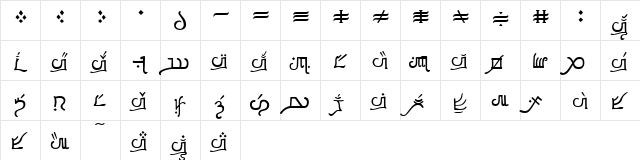
Harn Lakise Normal
Design Context for Harn Lakise Typeface
Harn Lakise takes a measured approach to typography — its balanced proportions and neutral character make it a reliable workhorse for both digital and print work.